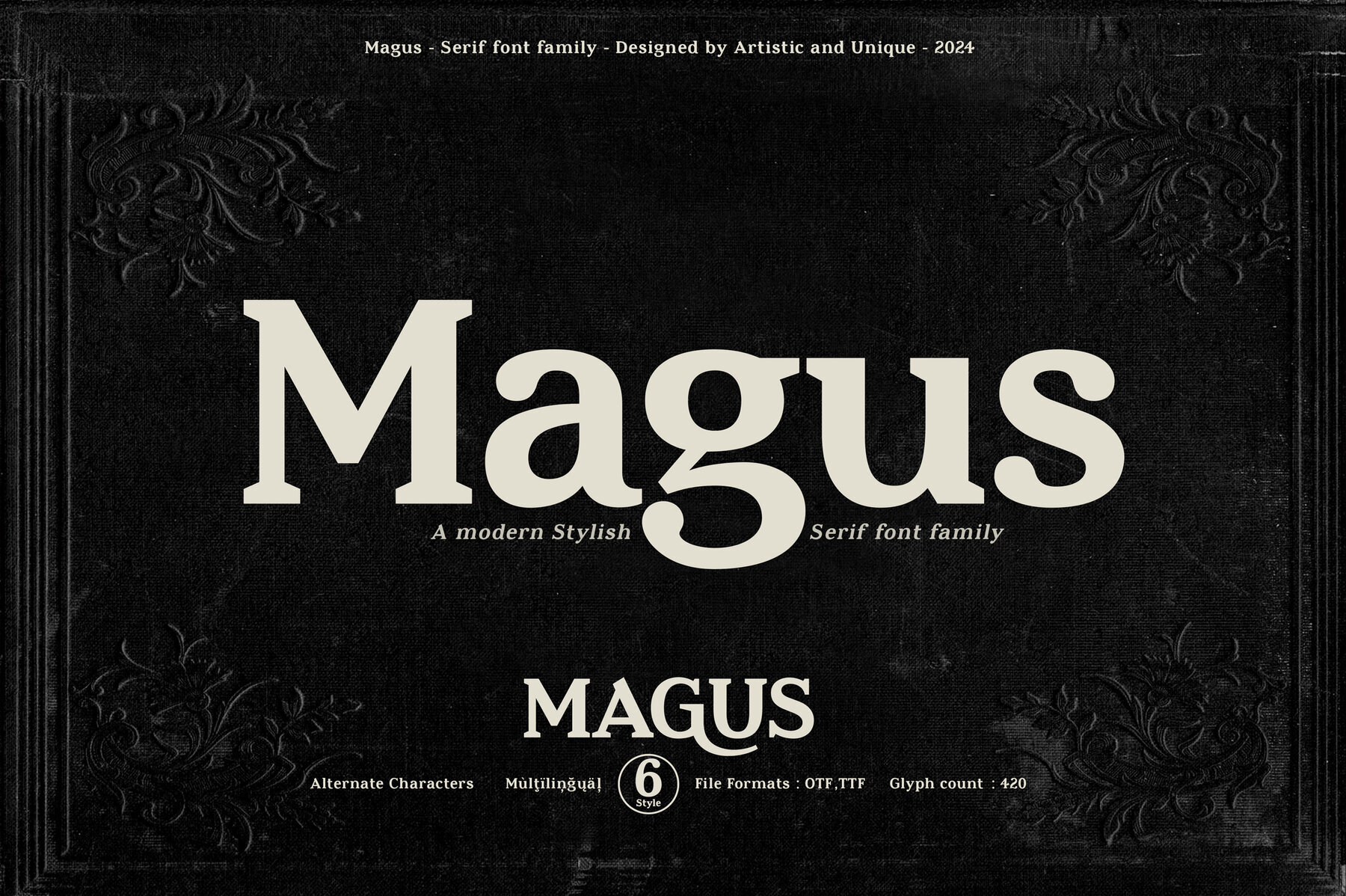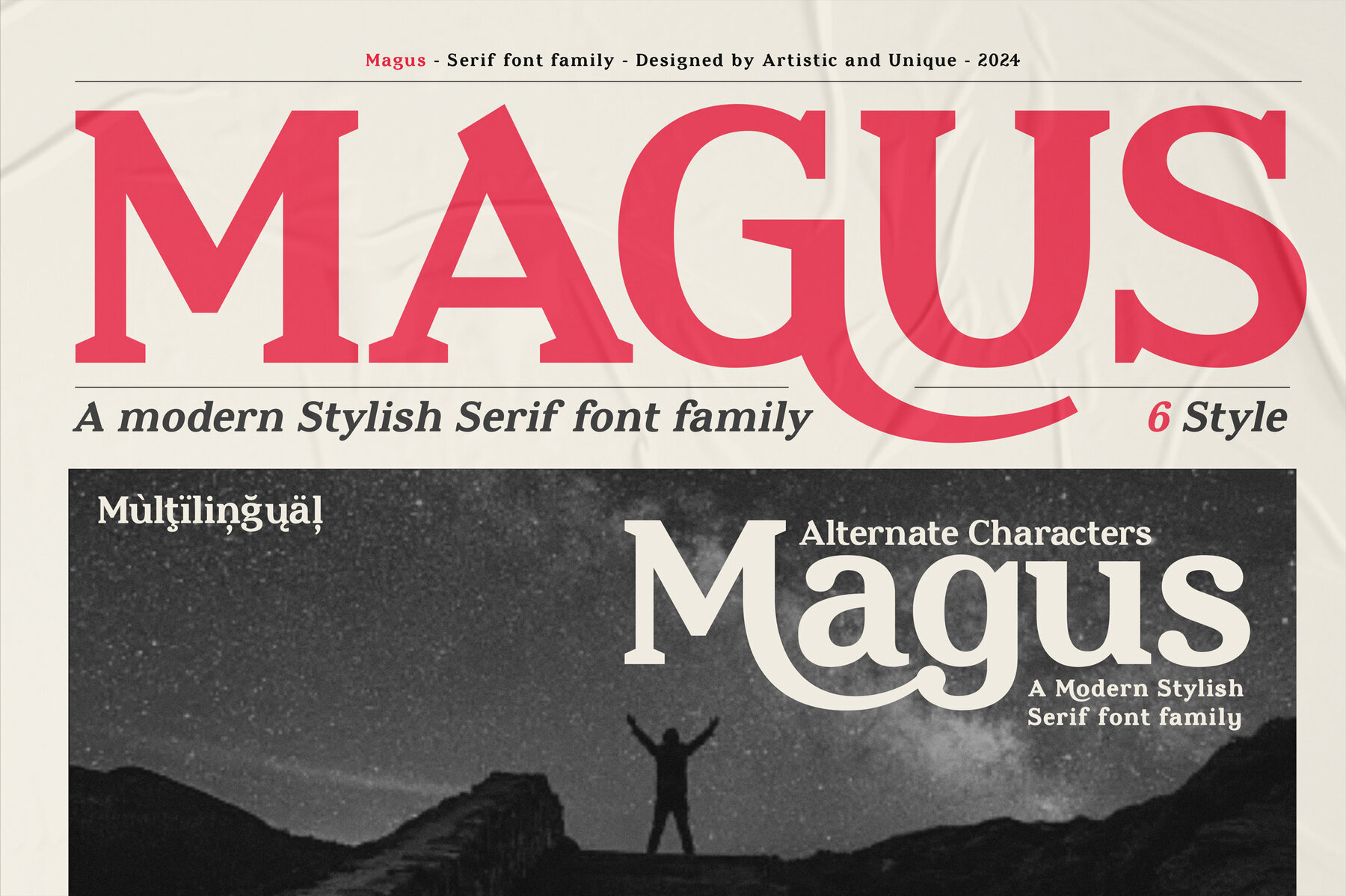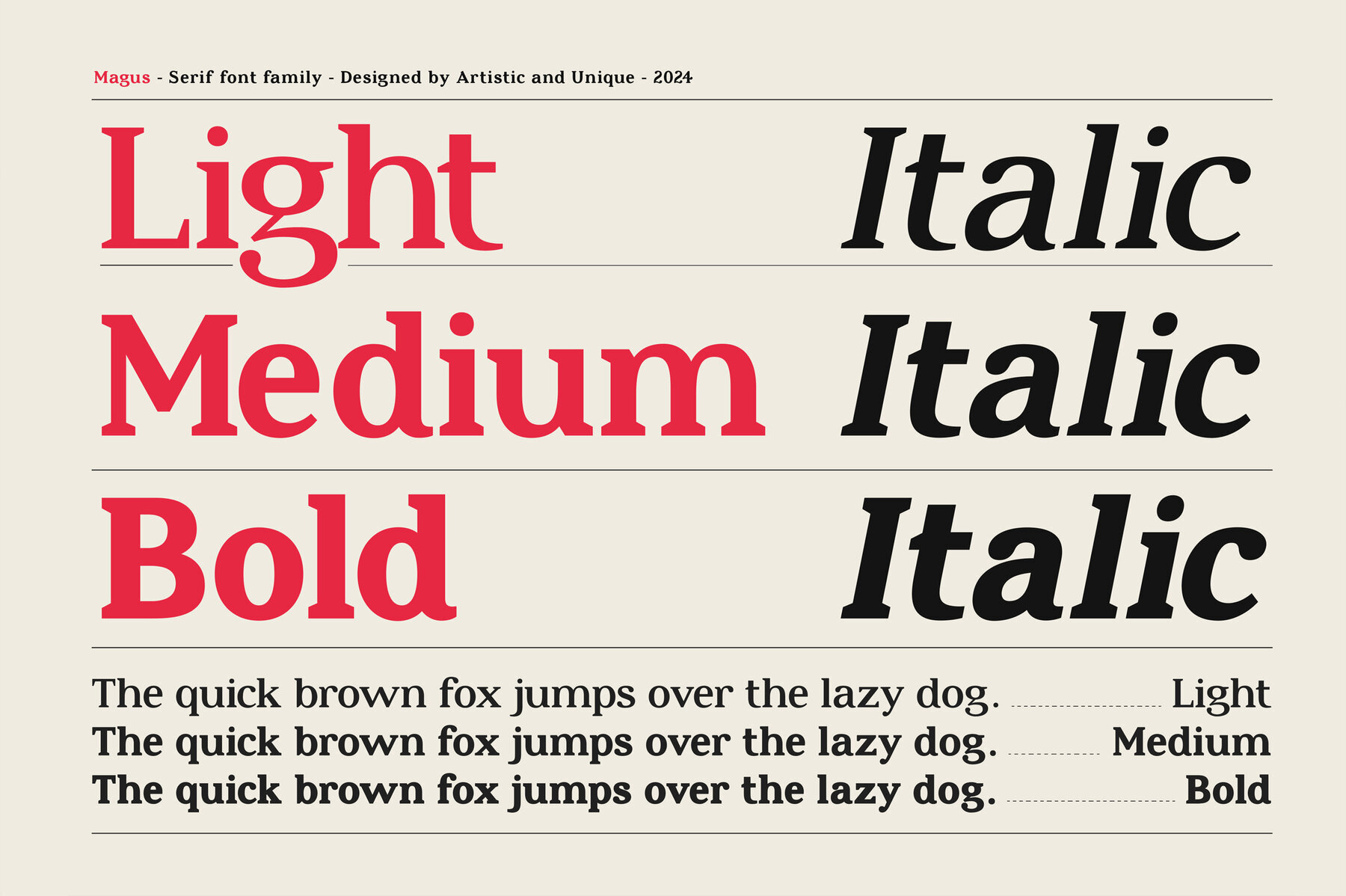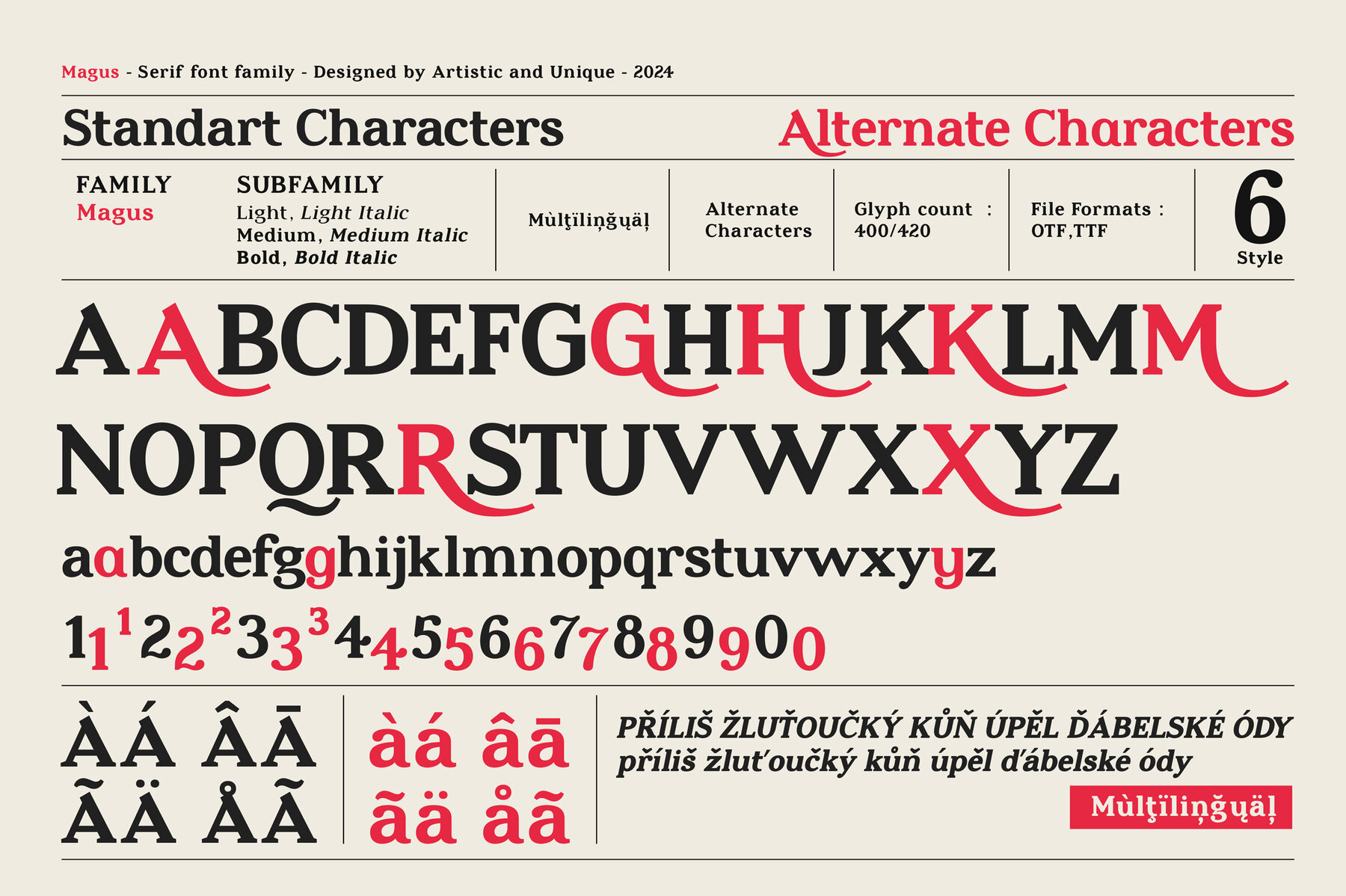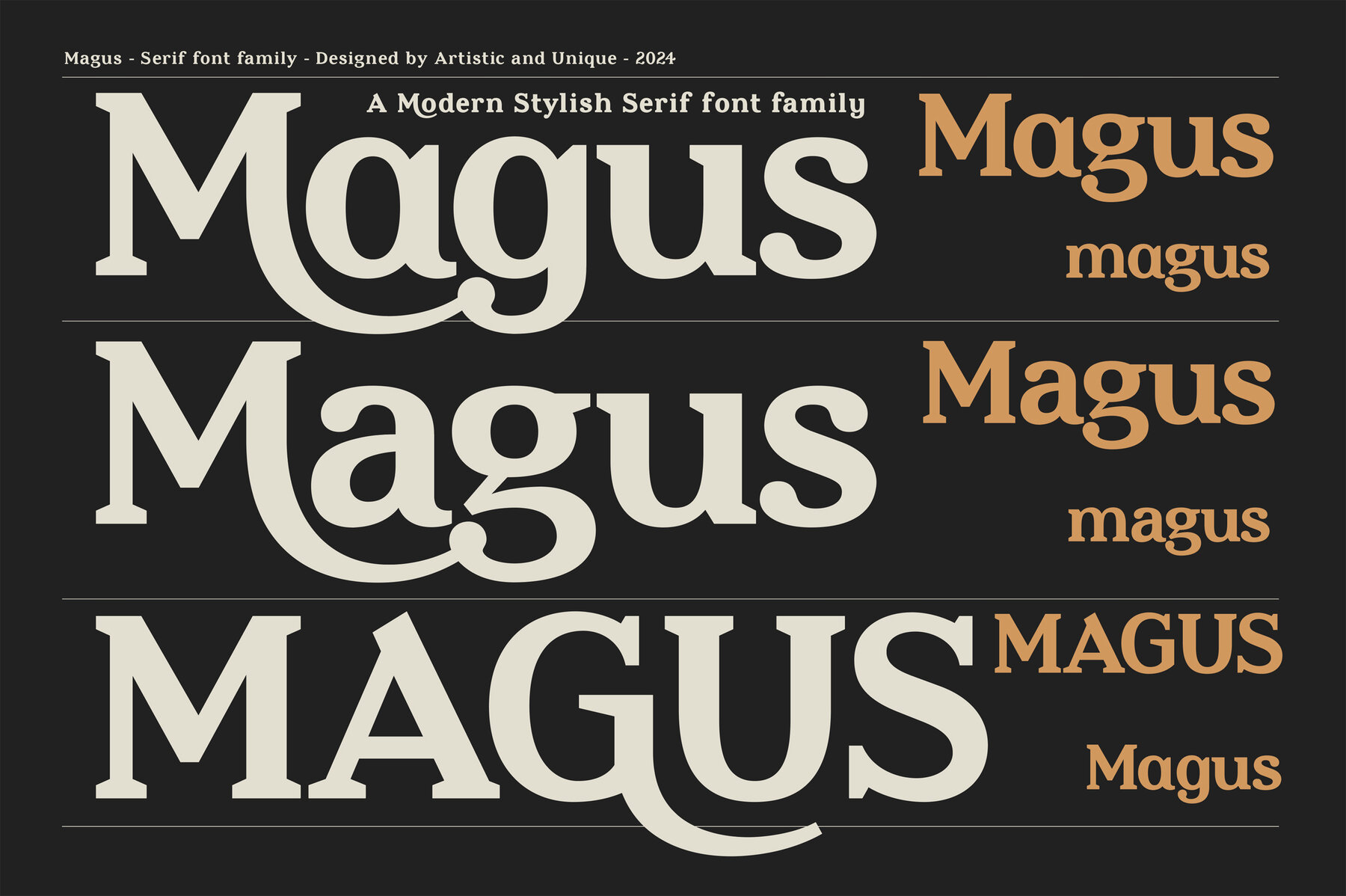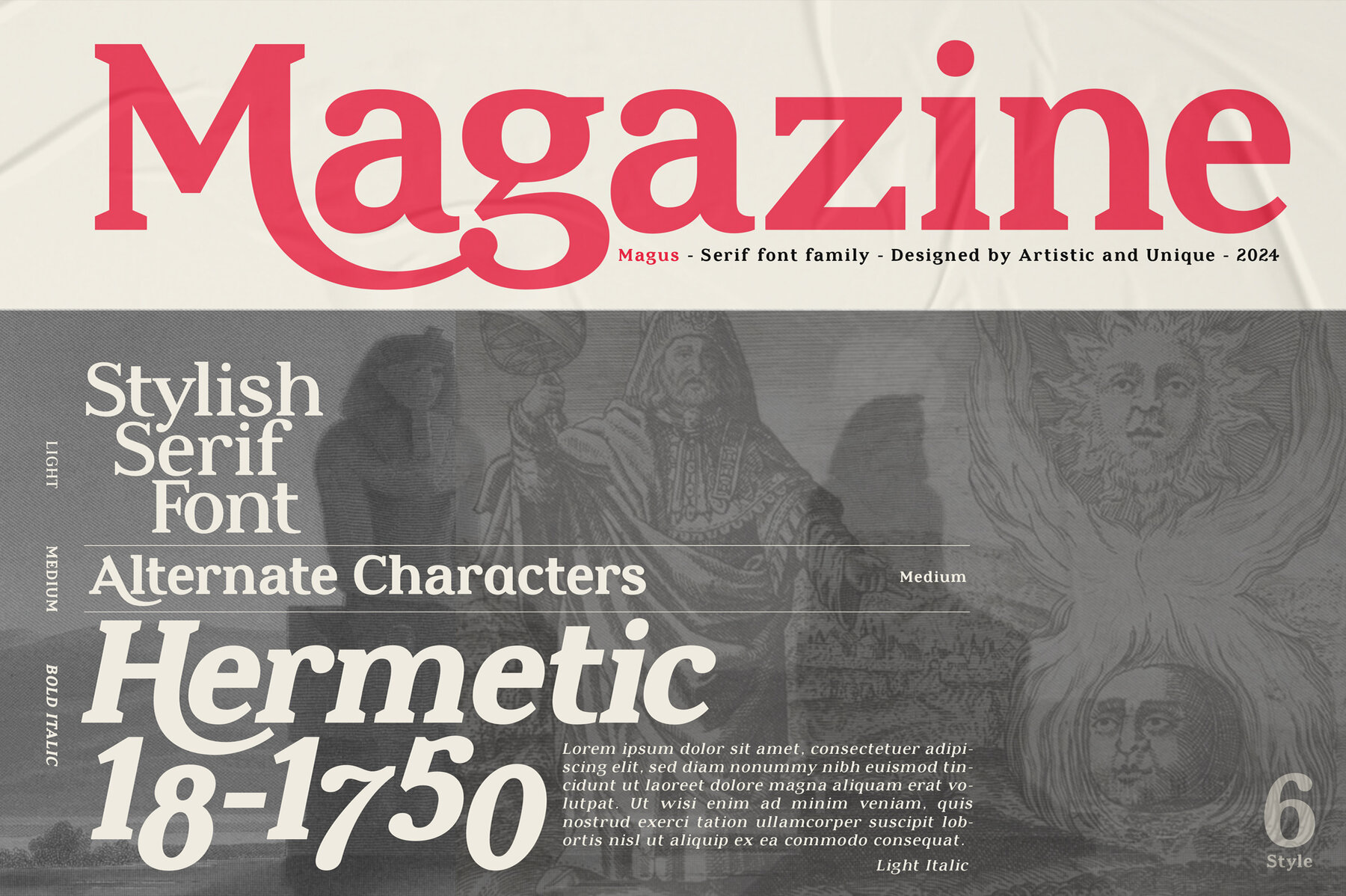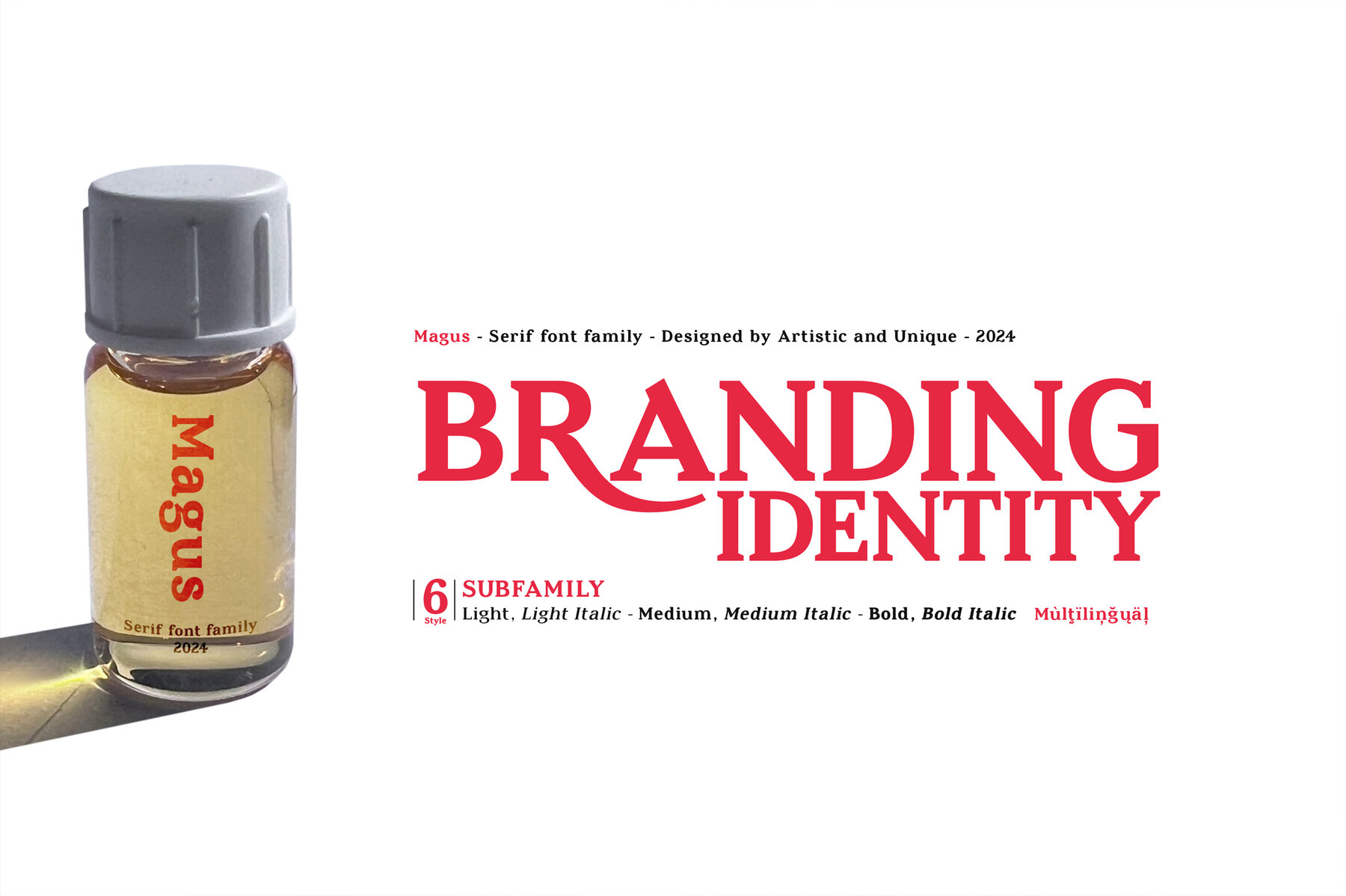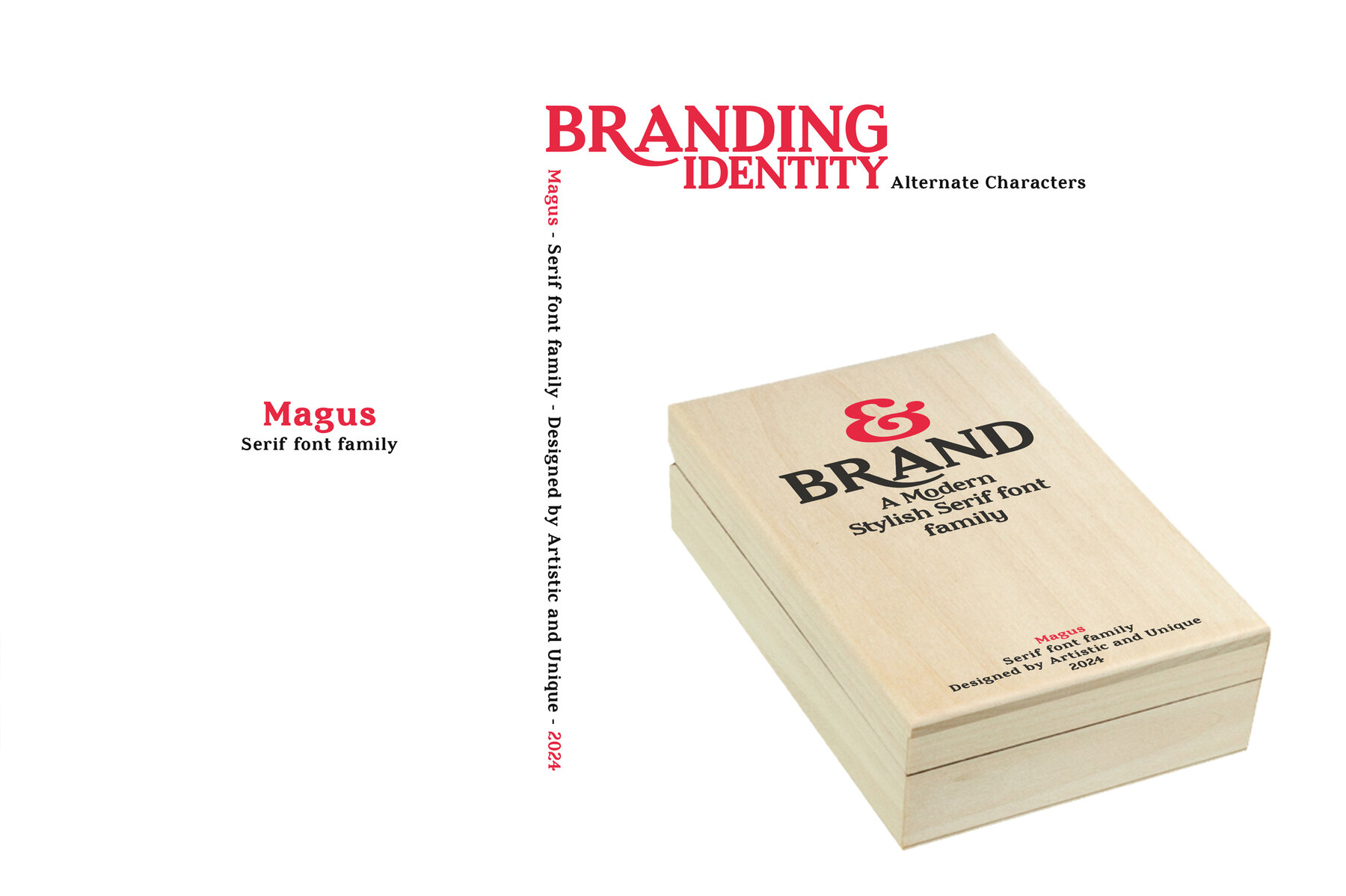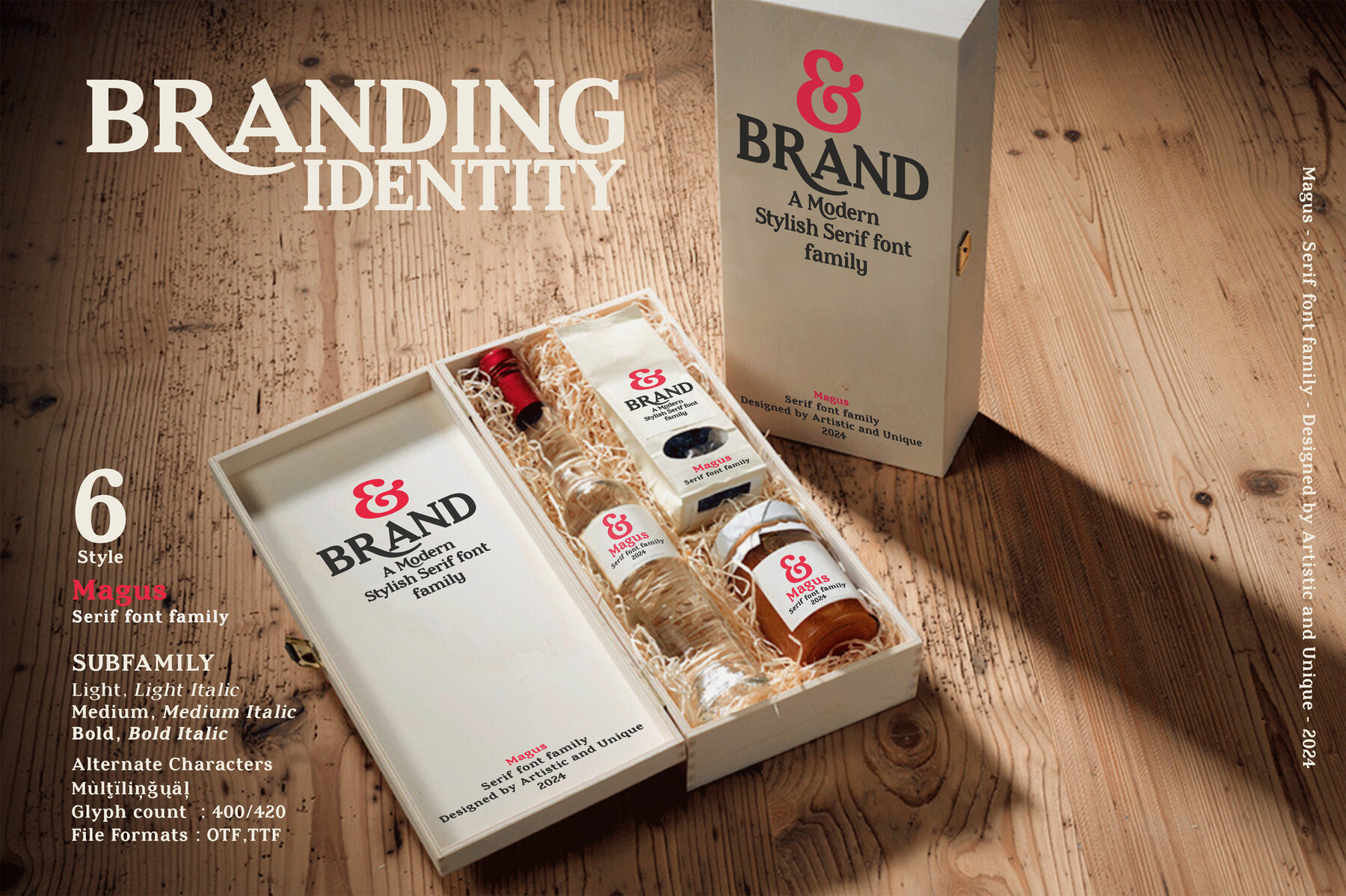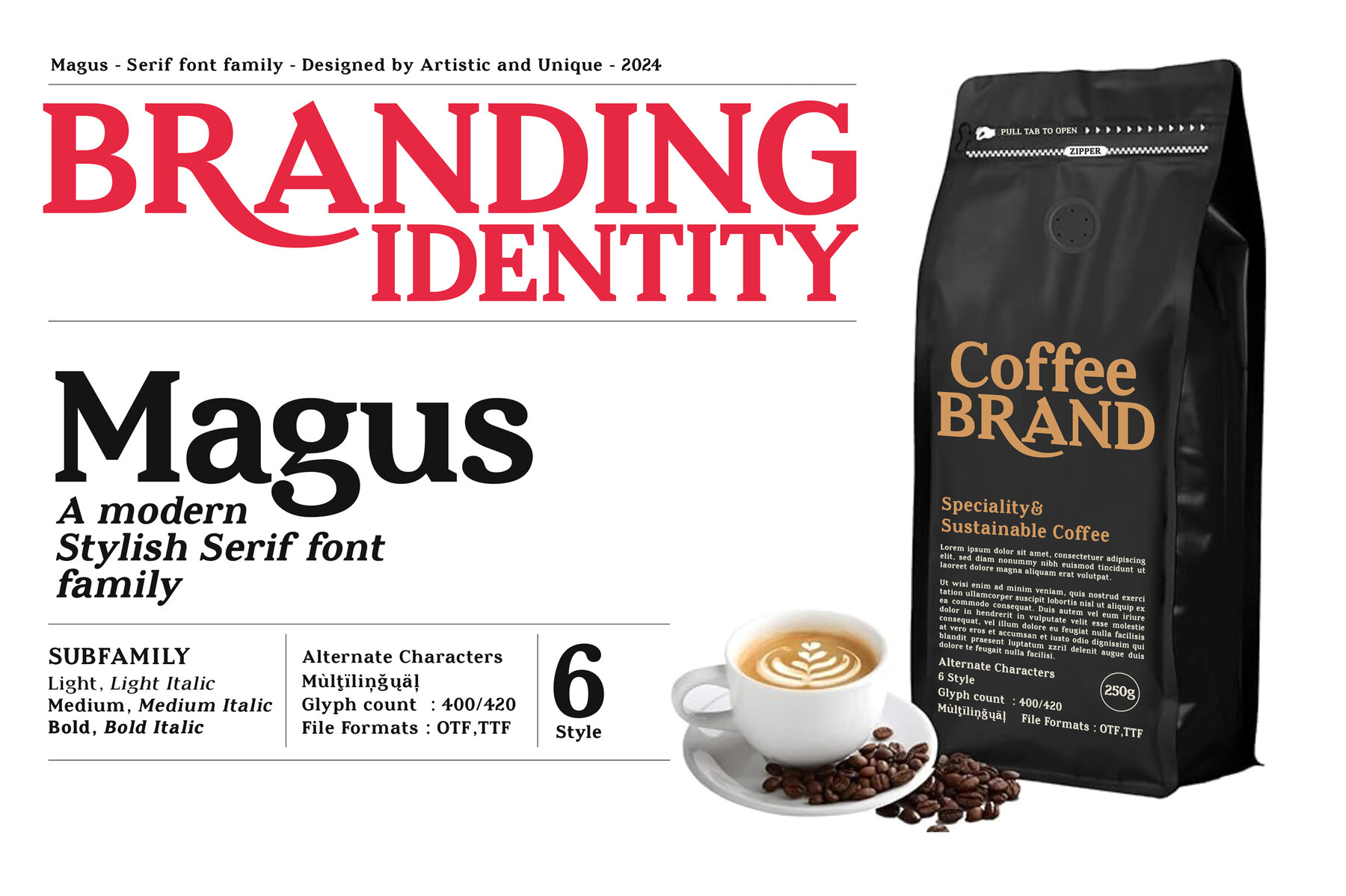
Magus Font
Elevate your design projects with Magus, a distinguished serif font family that offers powerful stylistic options. With six unique styles and support for multilingual characters, Magus enriches your content through alternative character designs. This font's flexibility shines across a broad spectrum of applications, from editorial work and magazines to branding and web design. Seamlessly integrate standard characters for clean text, or explore alternative characters to add an aesthetic flair.Magus: The Versatile Serif Font Family
Whether crafting titles for books, developing brand identities, or designing sleek packaging, Magus provides the versatility needed to create striking typographic compositions. It's particularly ideal for headlines, movie titles, and any project requiring a touch of sophistication.Key Features